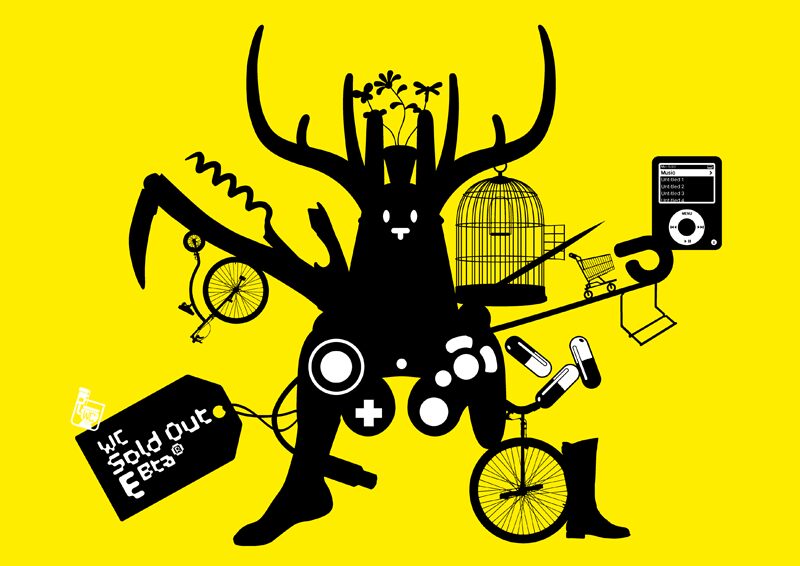
WC Sold Out E Bta
WC Sold Out E by WC Fonts is a free object dingbat font built from crisp silhouette drawings. The icons combine solid masses, fine outlines, and small mechanical details.
Its vehicle symbols suit both logistics branding and cycling event graphics because they read like compact illustrations. Fashion packaging and homeware promotions can draw on the same mixed catalog of objects. In editorial design, the symbols can replace spot illustrations or form themed pictograms beside photography.